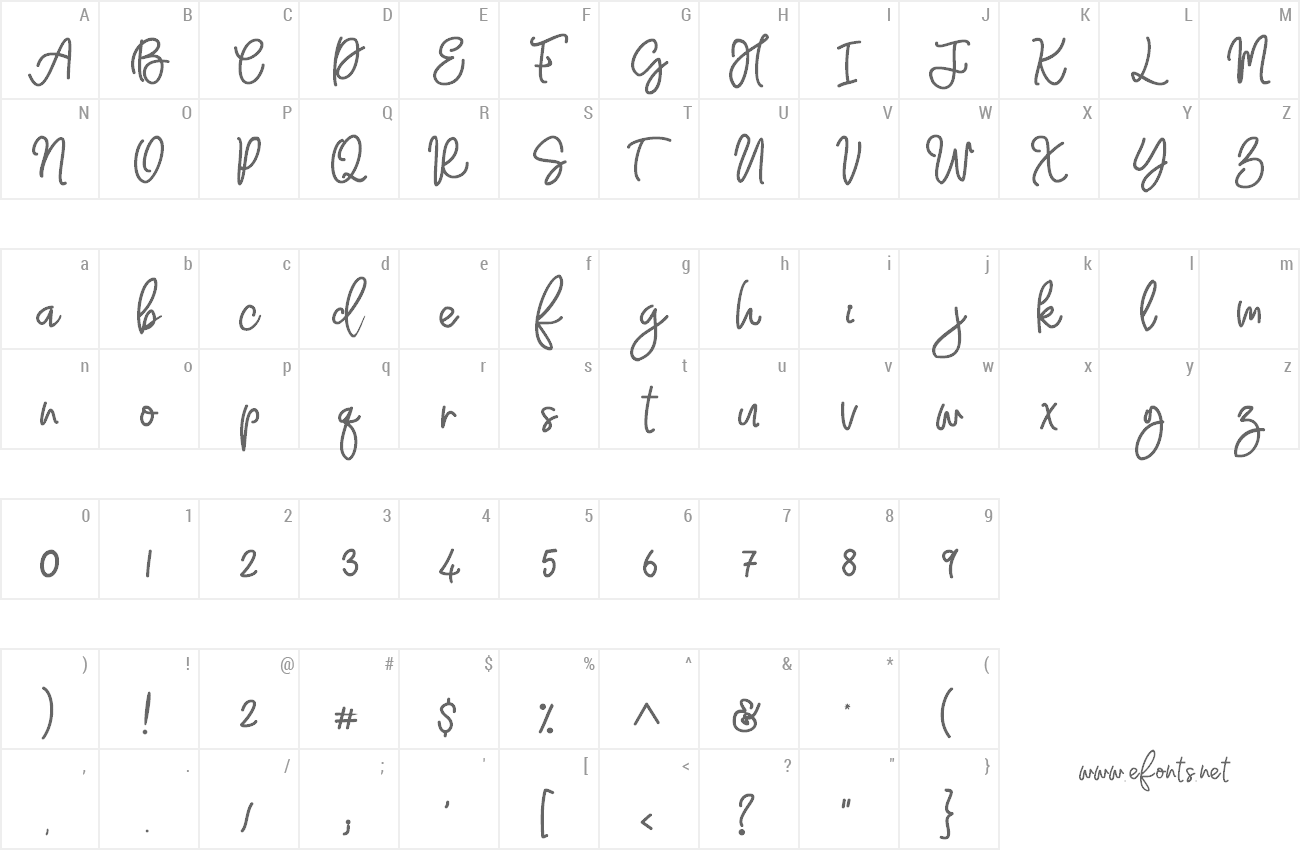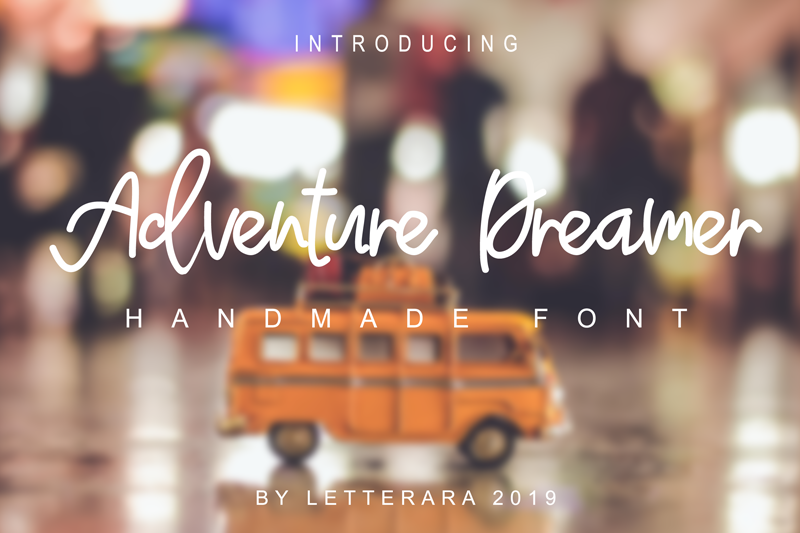
Adventure Dreamer is a stylish unique handwritten font and easy to remember. It's great for unique branding, photo overlays, watermark, business card, invitations, wedding, photography, fashion, etc. This DEMO font is not contain all of its unicode glyphs, and for PERSONAL USE ONLY. Get the FULL VERSION and COMMERCIAL LICENSE here: email to thomasaradea@gmail.com visit our store: https://www.creativefabrica.com/designer/thomasaradea/ Paypal account for donation : https://www.paypal.me/thomasaradea |